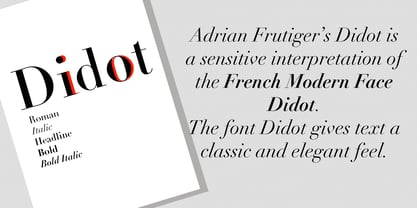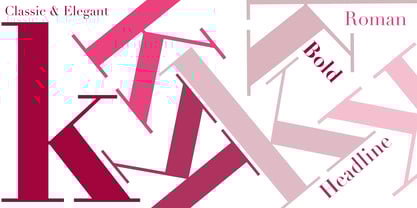
Linotype Didot
Linotype Didot™
par Linotype
Linotype Didot Font la famille était conçu par Adrian Frutiger, Firmin Didot, Linotype Design Studio et publié par Linotype. Linotype Didot contient 7 styles et des offres familiales.
Linotype Didot™ was drawn by Adrian Frutiger in 1991, and is based on the fonts cut by Firmin Didot between 1799 and 1811. Frutiger also studied the Didot types in a book printed by the Didots in 1818, "La Henriade" by Voltaire. This beautifully drawn family is the right choice for elegant book and magazine designs, as well as advertising with a classic touch.
Concepteurs: Adrian Frutiger, Firmin Didot, Linotype Design Studio
Éditeur: Linotype
Fonderie: Linotype